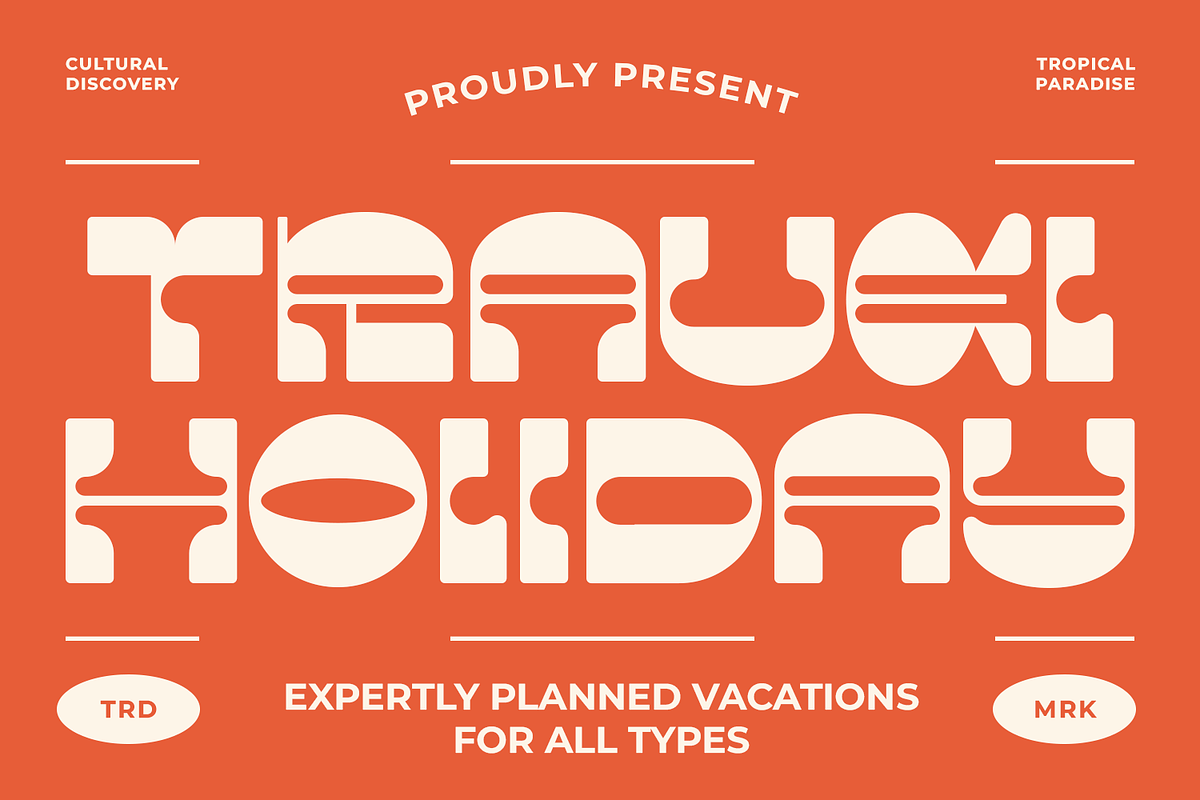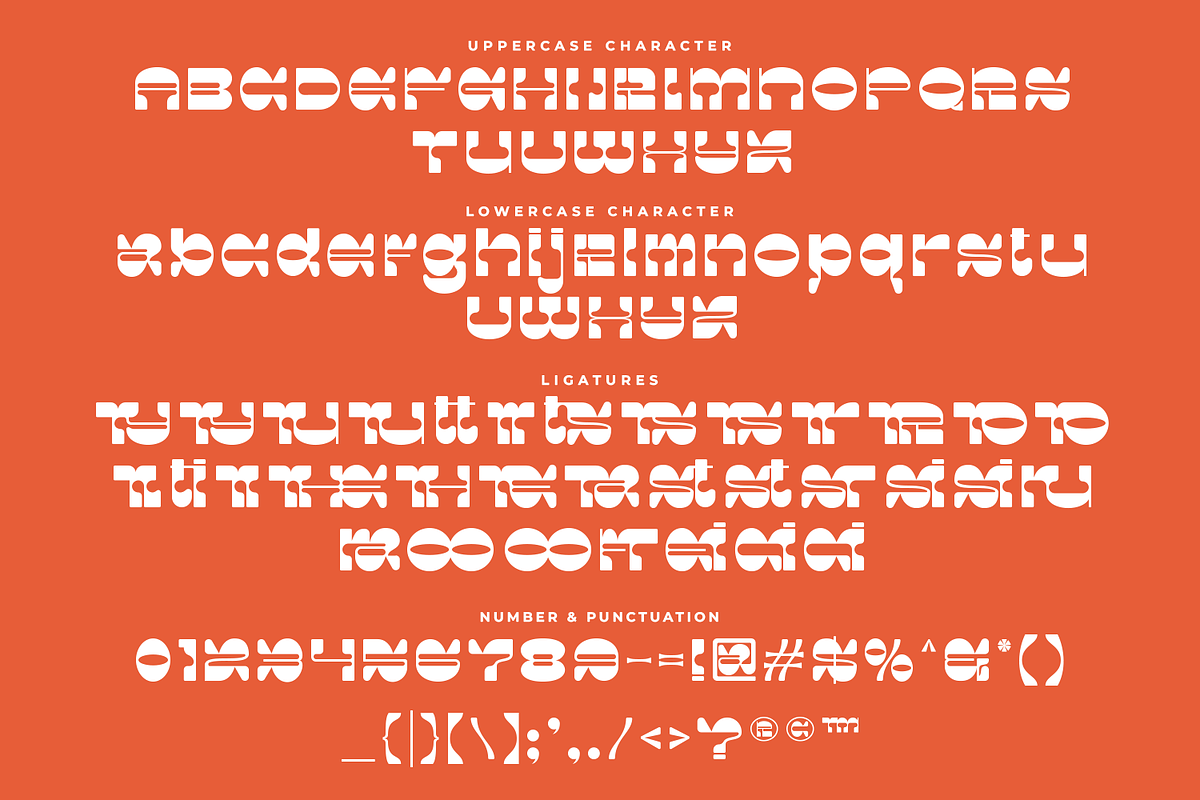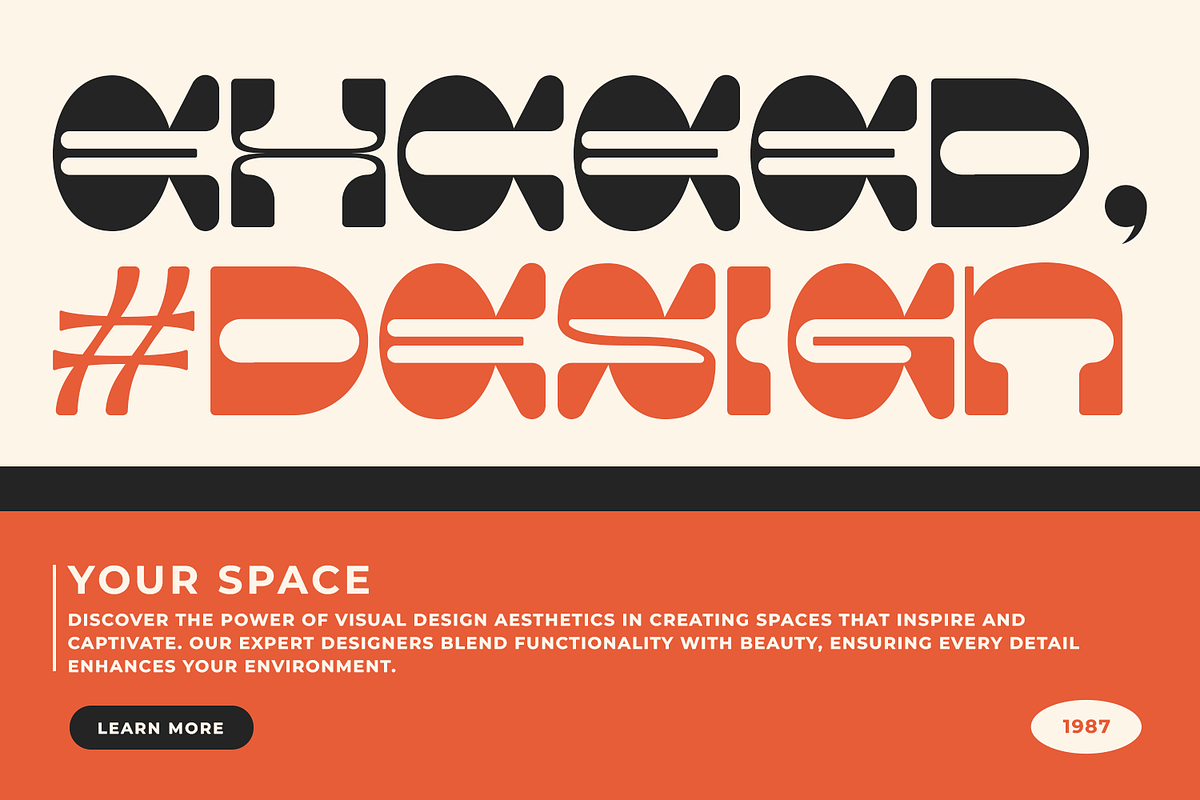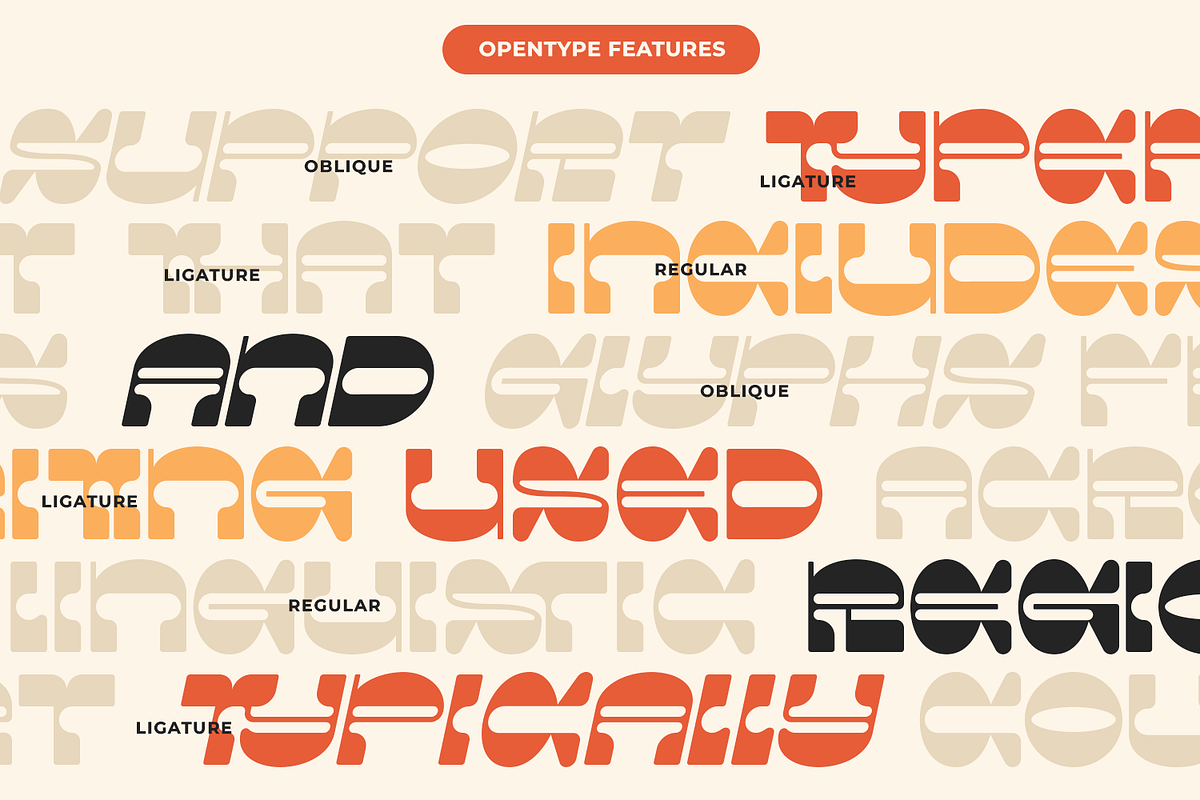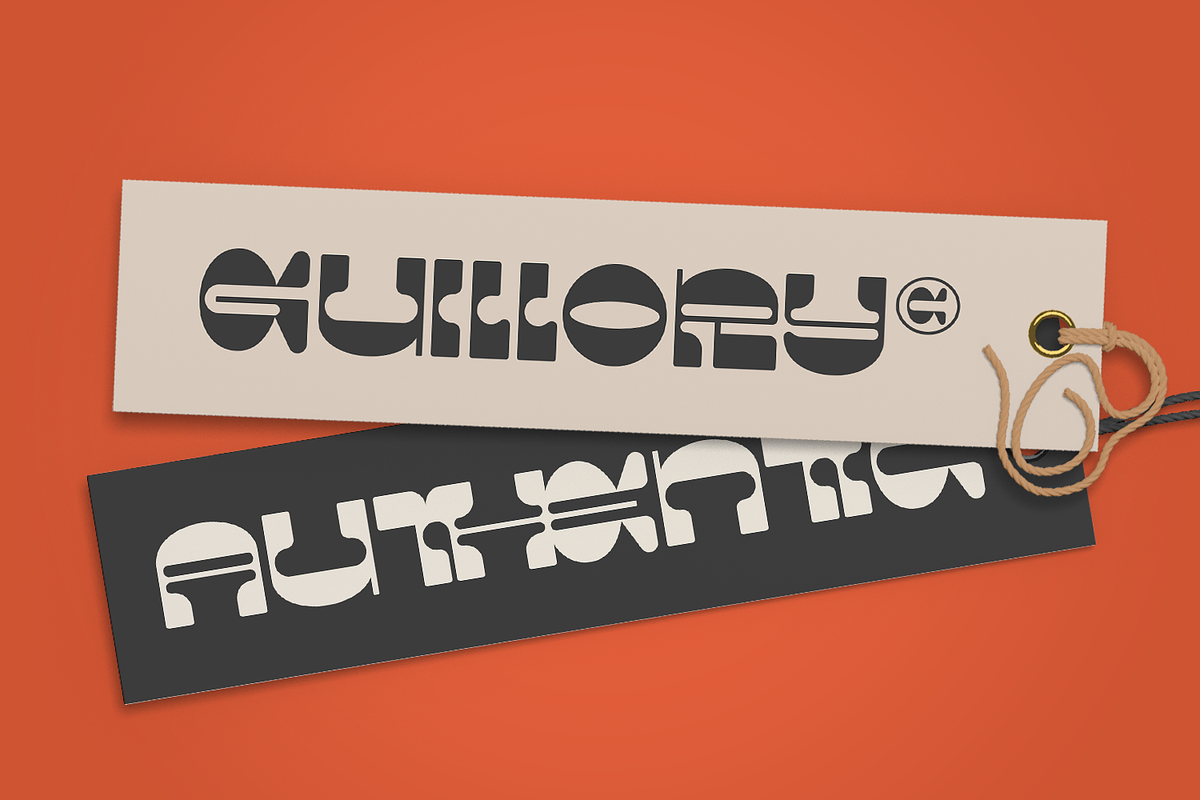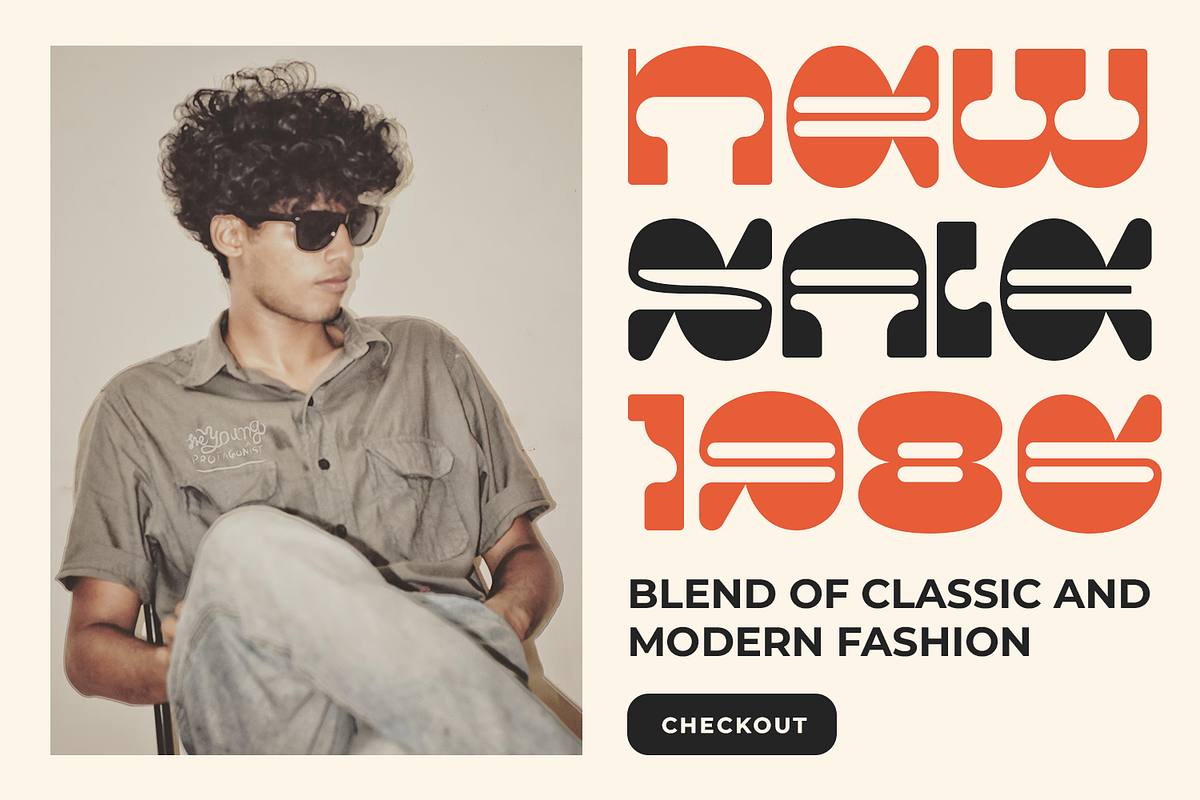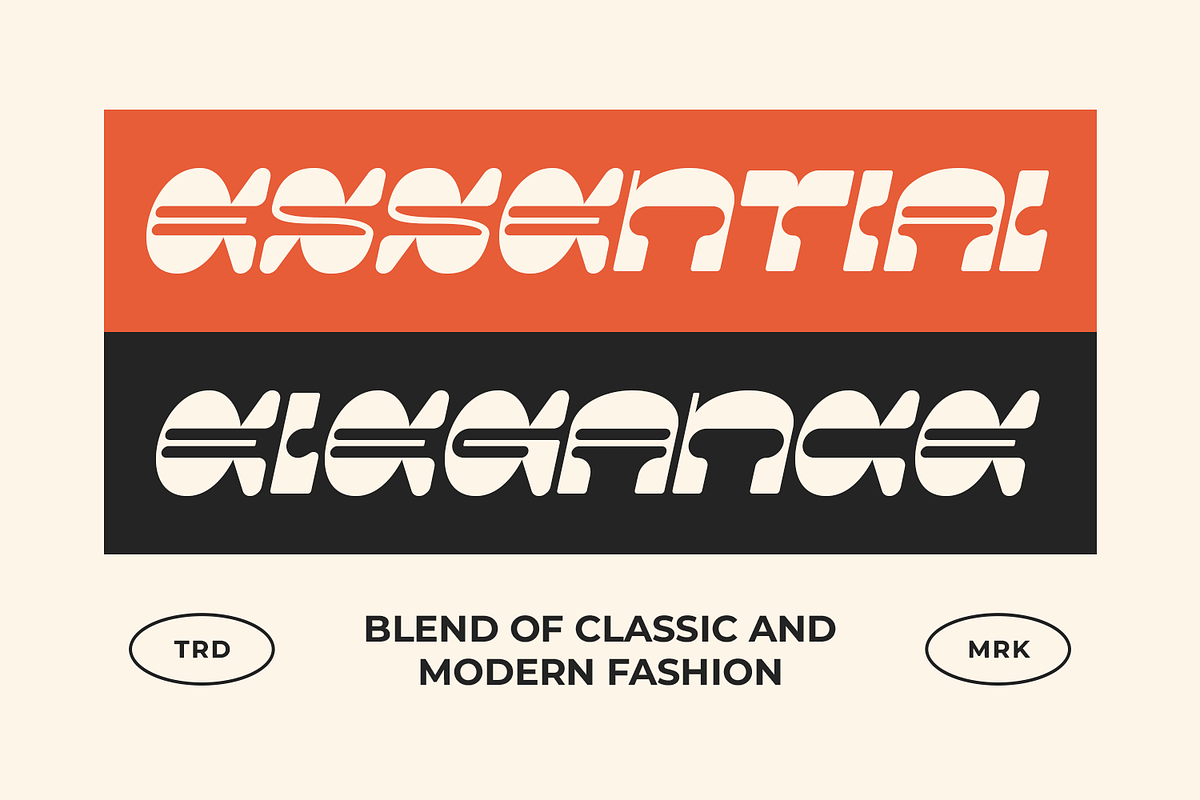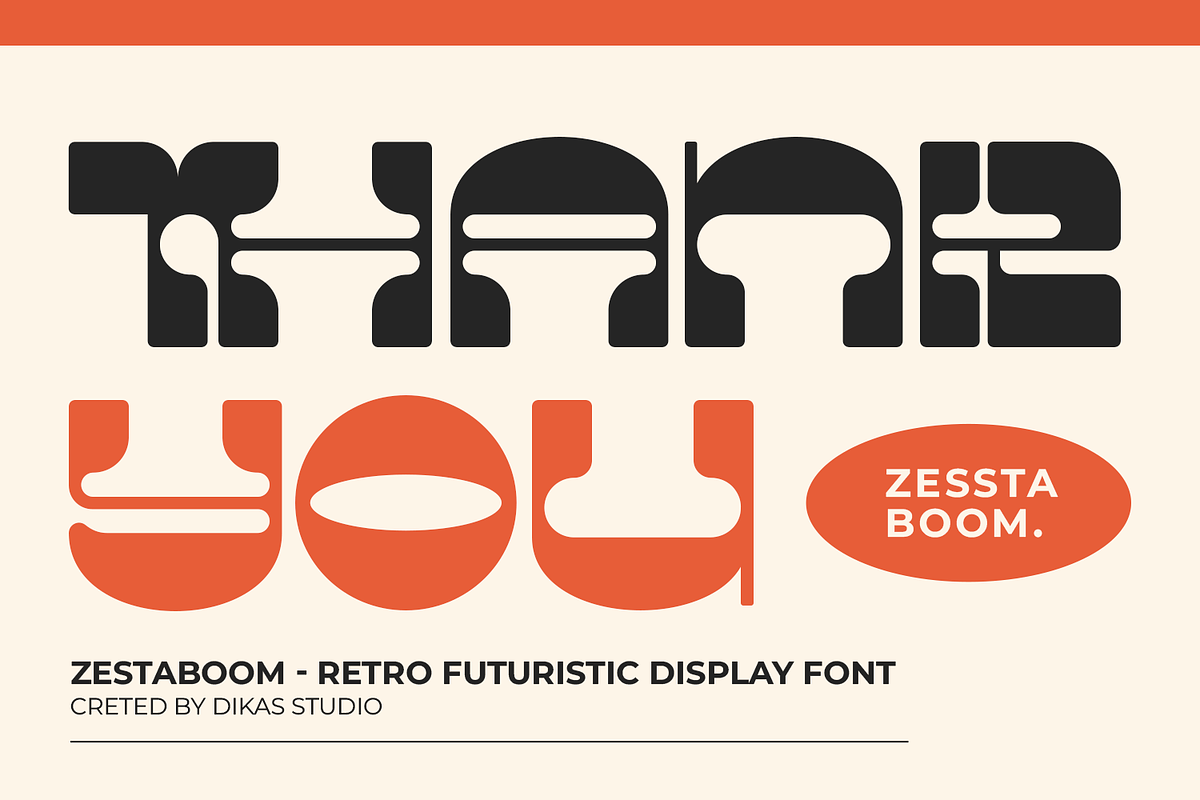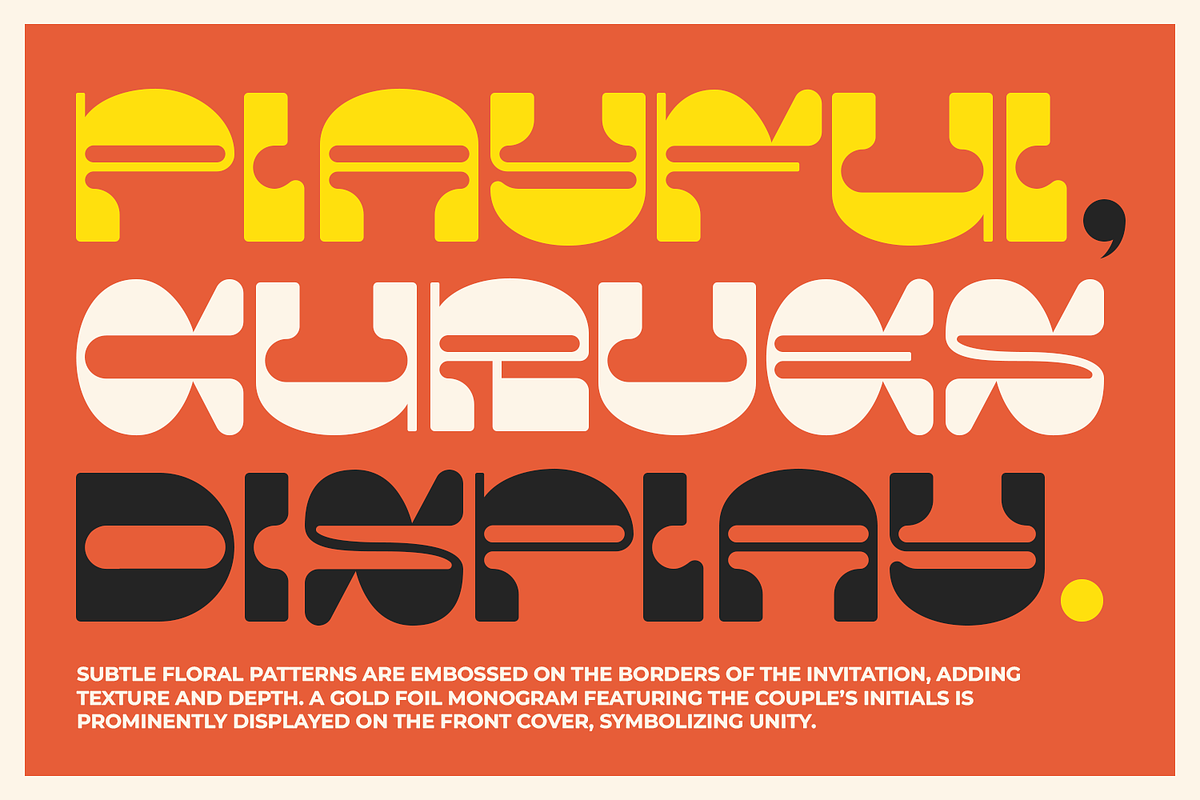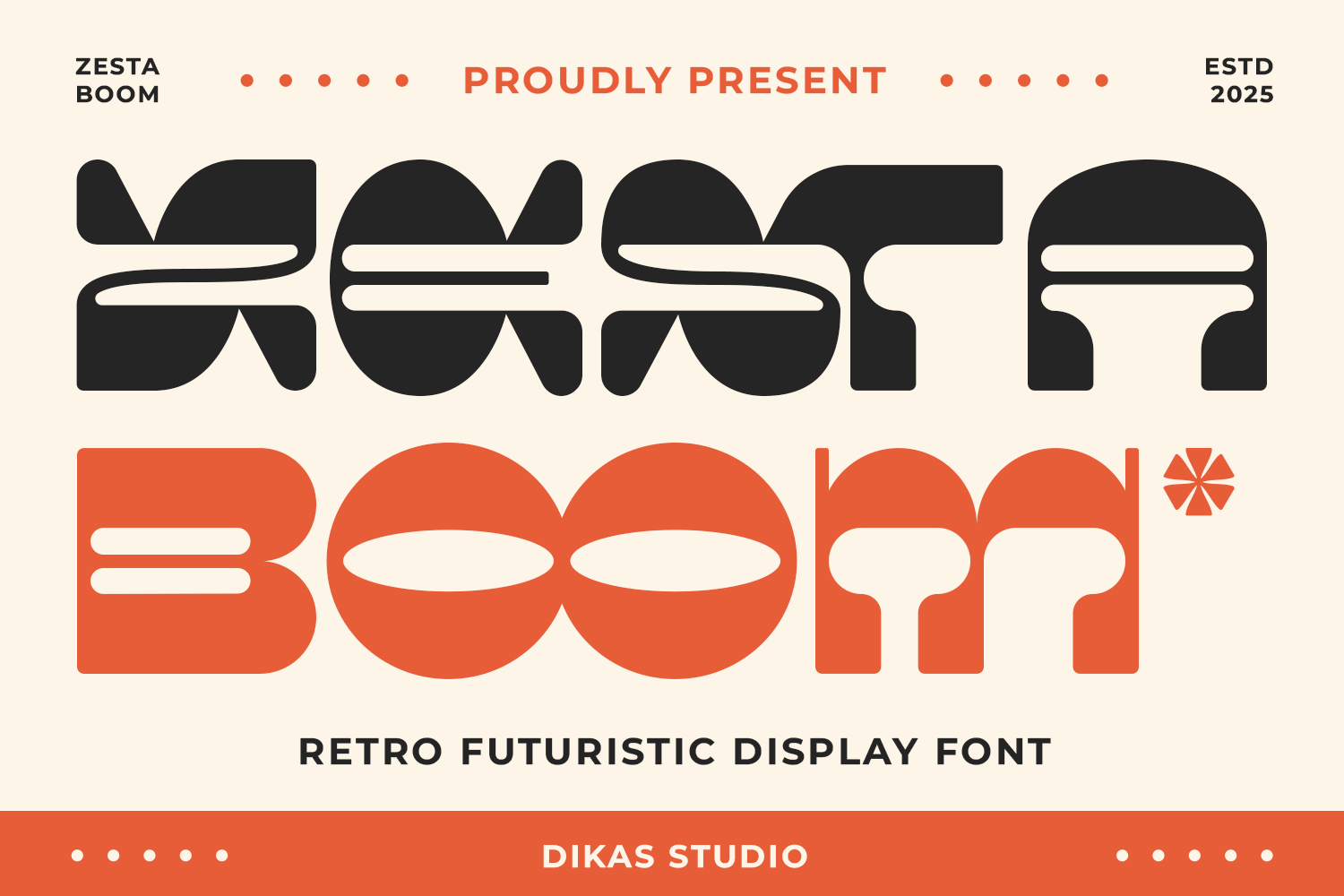
Zestaboom - Retro Bold Font
Zestaboom – Bold Retro Font
Zestaboom is a bold and vibrant retro font with a unique reverse contrast style that makes it stand out from the crowd. Inspired by classic 70s design and vintage lettering, this retro font brings a fun, funky energy to any project. Its quirky shapes and strong presence make it perfect for retro-themed posters, logos, album covers, packaging, and more. Whether you're going for a groovy vibe or a playful vintage look, Zestaboom is the retro font that brings your design to life with boldness and flair.
Punctuation & Number
Multilingual Language
Ligature